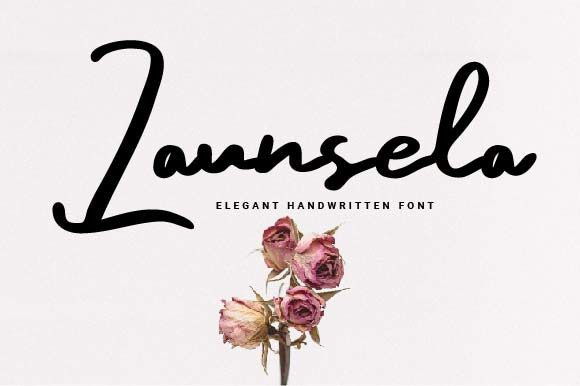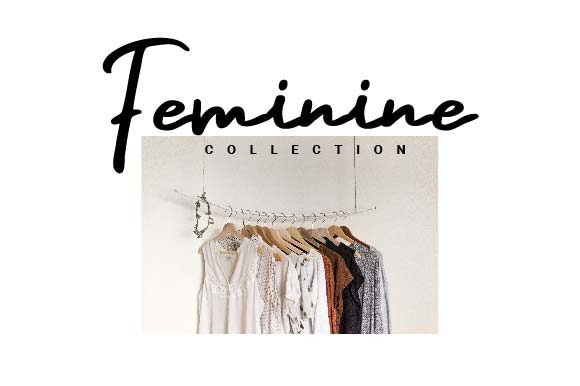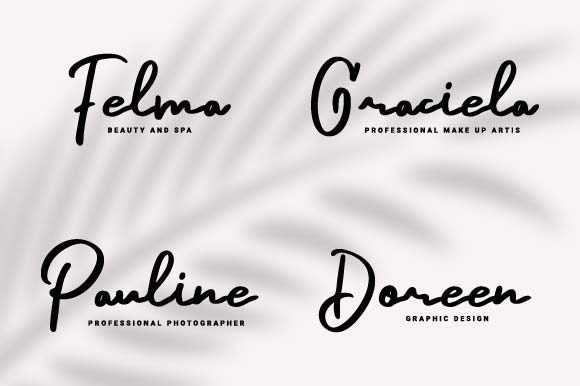
Launsela Font
Lounsela is an elegant, minimalist, and beautiful handwritten font. Its bold letters contrasted with its feminine lines create a beautiful harmony.